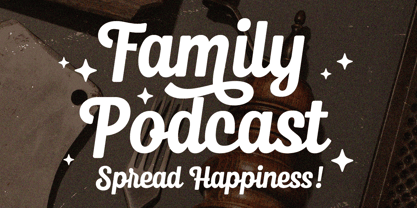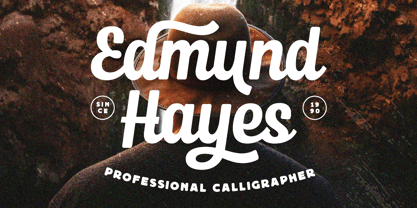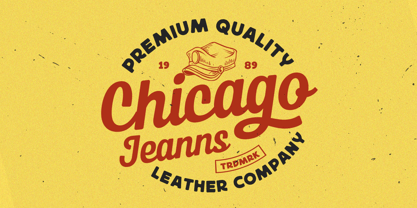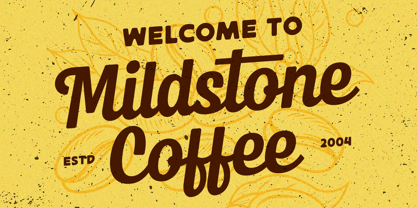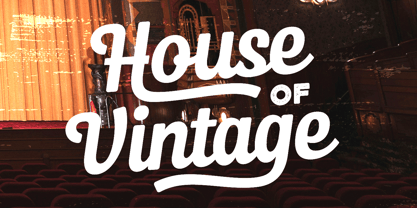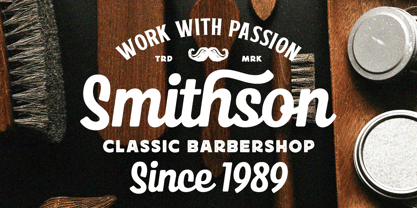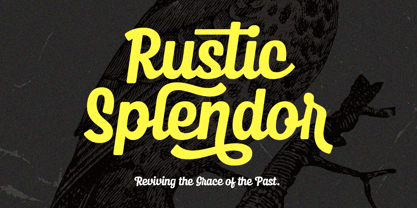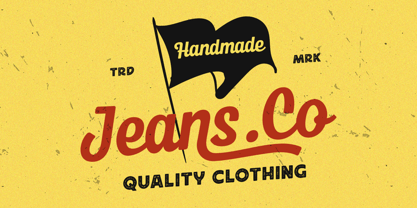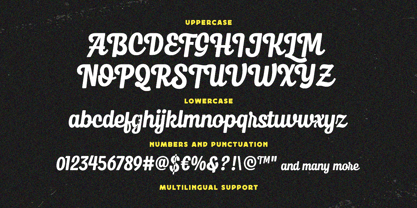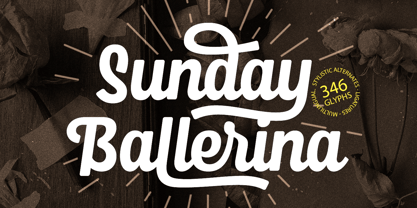
Sunday Ballerina
by Arterfak Project
The Sunday Ballerina Font Family was designed by Ahmad Ramzi Fahruddin and published by Arterfak Project. Sunday Ballerina contains 1 styles. More about this family
Introducing Sunday Ballerina, a stunning vintage monoline typeface that seamlessly blends old-school script typography with a modern touch, exuding sophistication and elegance.
Perfect for a wide range of applications, including logos, signage, cards, labels, posters, motion graphics, logotypes, branding, apparel, merchandise, and more. This versatile font can adapt to various themes, such as vintage, sports, retro, adventure, minimalist, food & beverages, holiday, urban, and many others.
Sunday Ballerina comes packed with numerous alternates and swash characters, giving you the flexibility to create unique and varied typographic designs.
- Uppercase
- Lowercase
- Numbers & symbols
- Punctuations
- Stylistic alternates
- Stylistic set 01-05
- Multilingual support